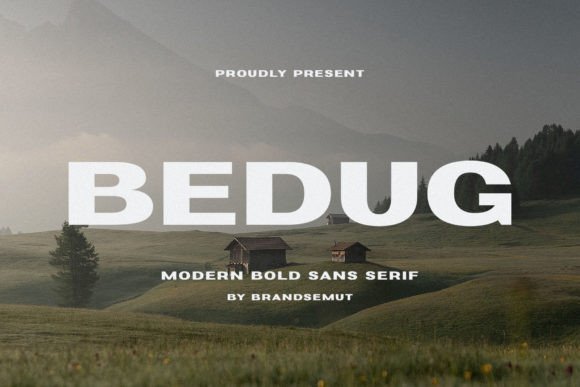
Dive into a world of captivating typography with Bedug, the dynamic sans serif font that injects a spark of modernity into your creative endeavors. Expertly crafted by the esteemed BrandSemut, Bedug is a visual masterpiece, forging a harmonious blend of clean lines and graceful curves. Let Bedug be your muse, inspiring you to create designs that resonate with your audience and leave an indelible mark on their minds.
Unleash your imagination and harness the power of Bedug to craft captivating headings that demand attention, logos that exude professionalism, branding that radiates sophistication, and product packaging that captivates the senses. Whether you're designing magazines, invitations, or any visual medium, Bedug will elevate your work, adding a touch of elegance and visual intrigue that sets it apart from the ordinary.
Bedug's versatility knows no bounds. Its inherent charm extends beyond traditional print media, making it the perfect choice for social media platforms where captivating visuals reign supreme. Create eye-catching posts, stories, and graphics that capture the essence of your brand, engage your audience, and leave a lasting impression. Let Bedug be your secret weapon, propelling your social media presence to new heights and attracting a loyal following eager to engage with your content.
With Bedug as your design companion, possibilities are endless. Its clean lines and smooth curves lend themselves seamlessly to a myriad of creative applications. Whether you're a seasoned designer seeking to expand your typographic horizons or a budding enthusiast eager to make your mark, Bedug is the font that will ignite your creativity and elevate your designs to new heights.